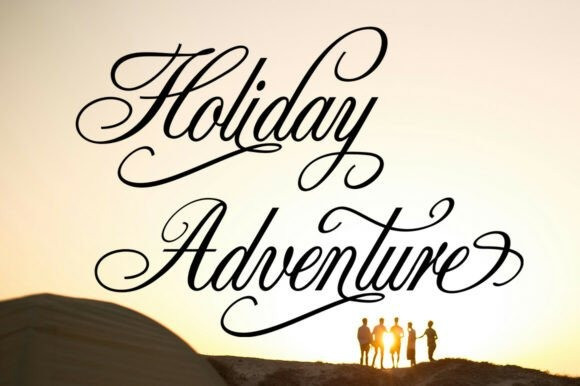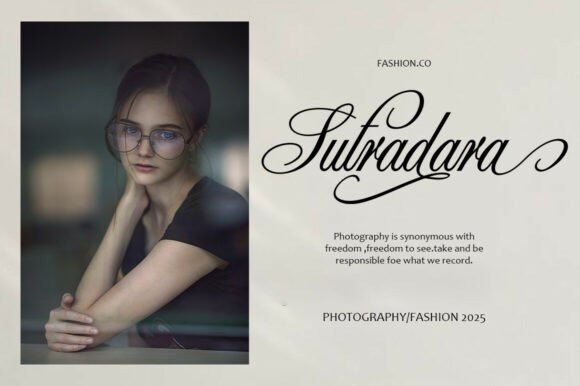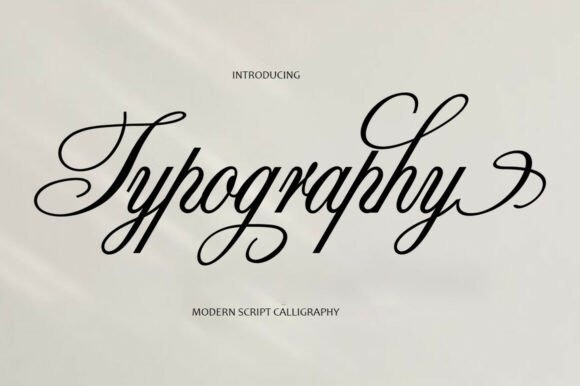
Typography Calligraphy Font
Typography Calligraphy Font is a modern script calligraphy font with a beautifully irregular baseline, bringing a trendy yet elegant feminine touch to your designs. Its graceful, flowing strokes make it perfect for wedding invitations, thank-you cards, quotes, greeting cards, logos, business cards, and so much more. Whether paired with ink textures or watercolor effects, Typography Script adds charm and sophistication to any project.
This font includes initial and terminal letters, stylistic alternates, ligatures, and full multilingual support, giving you endless creative possibilities.